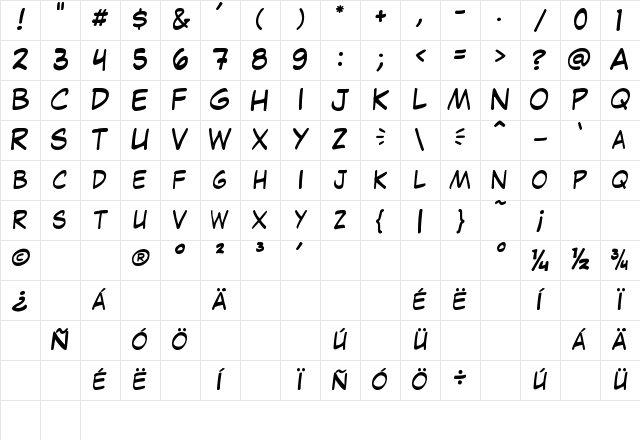
Laffayette Comic Pro Regular Free Font
Laffayette Comic Pro Regular
Foundry: Laffayette Systems￿
Designer: Laffayette Systems￿
Design Context for Laffayette Comic Pro
Laffayette Comic Pro has an approachable, lighthearted character - its loose, expressive forms are well-suited to children's content, casual branding, and fun-first design.
Well-suited to food and beverage brands with personality, educational materials, and fun-forward identities.
Font Pairing: Pairs well with a rounded or humanist sans for body copy, maintaining the friendly tone without relying on Laffayette Comic Pro to carry extended reading.
Pro Tip: Use Laffayette Comic Pro at larger display sizes where its expressive character can land. Pair with a clean, simple sans for body copy to maintain readability.